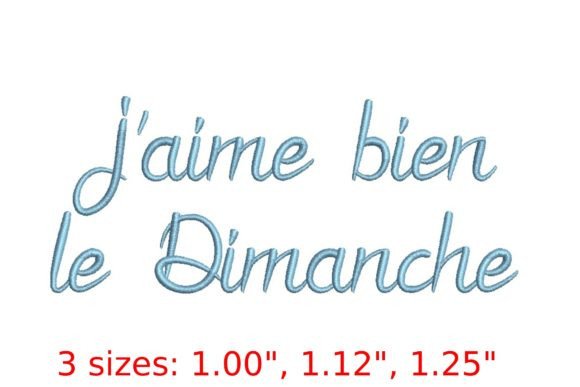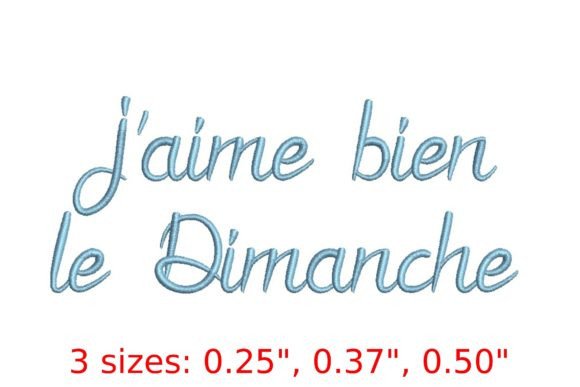
J aime Bien Le Dimanche Script Font: A Sunday-Inspired Design for Creativity and Craft
The J aime Bien Le Dimanche Script font is more than just a typographic style—it's an invitation to slow down, savor the moment, and infuse creativity into everyday projects. With its elegant, flowing letterforms, this script font captures the essence of Sunday tranquility, making it a perfect fit for embroidery enthusiasts, designers, and anyone looking to add a touch of charm and personality to their work.
What Is J aime Bien Le Dimanche Script Font?
J aime Bien Le Dimanche Script font is designed to evoke a sense of calm and comfort, reminiscent of a peaceful Sunday afternoon. Its graceful curves and soft transitions make it ideal for personalized designs, home decor, and thoughtful gifts. Whether you're creating custom monogrammed items, adding a unique touch to your living space, or crafting something special for a loved one, this font adds a layer of sophistication and warmth to your project.
Where Does J aime Bien Le Dimanche Script Font Fit In?
The J aime Bien Le Dimanche Script font can be integrated into a wide range of creative processes. It works well before, during, or after a project, depending on your needs. For instance, you might use it to plan out a design before starting your embroidery, as a visual guide while stitching, or as a final touch to enhance the aesthetic of your finished piece.
For those working on personal or business projects, this font can serve as a branding element. Whether you're creating custom labels, signage, or promotional materials, the J aime Bien Le Dimanche Script font adds a distinctive character that sets your work apart. Its versatility makes it suitable for both small-scale hobbies and larger commercial applications.
How to Use J aime Bien Le Dimanche Script Font in Your Workflow
Integrating the J aime Bien Le Dimanche Script font into your workflow is straightforward once you understand its capabilities. Here are some practical ways to incorporate it:
- Personalized Embroidery Projects: Use the font to create custom names, messages, or quotes for gifts, home décor, or clothing. The elegant script adds a refined look that’s both timeless and personal.
- Home Decor: Incorporate the font into fabric banners, wall art, or decorative pillows to create a cohesive and inviting atmosphere in your space.
- Business Branding: Use the font to design logos, signage, or packaging that reflects your brand’s personality. Its unique style can help you stand out in a competitive market.
- Learning and Teaching: If you're an educator or tutor, the font can be used to create worksheets, flashcards, or classroom displays that engage students with a visually appealing format.
- Freelance and Creative Work: As a freelancer or content creator, the font can enhance your portfolio by adding a professional yet artistic touch to your visual materials.
By using the J aime Bien Le Dimanche Script font at different stages of your creative process, you can ensure that your projects are not only functional but also expressive and meaningful.
Practical Tips for Using J aime Bien Le Dimanche Script Font
To get the most out of the J aime Bien Le Dimanche Script font, consider the following tips:
- Plan Your Design: Before starting your embroidery, sketch out how the font will fit into your overall design. Think about placement, size, and color to ensure a balanced composition.
- Explore Different Sizes: The font comes in multiple sizes, allowing you to customize your design based on the intended use. Experiment with different scales to find what works best for your project.
By following these steps, you can maximize the potential of the J aime Bien Le Dimanche Script font and create stunning, personalized pieces that reflect your creativity and attention to detail.
Enhancing Your Workflow with J aime Bien Le Dimanche Script Font
The J aime Bien Le Dimanche Script font is more than just a design tool—it’s a way to enhance your creative process and improve the quality of your work. Its elegance and flow make it a natural fit for projects that require both artistry and precision.
By understanding how to integrate this font into your workflow, you can unlock new possibilities and elevate the quality of your work. Whether you're a hobbyist, entrepreneur, or professional, the J aime Bien Le Dimanche Script font offers a unique way to express your vision and connect with others through beautiful, meaningful designs.